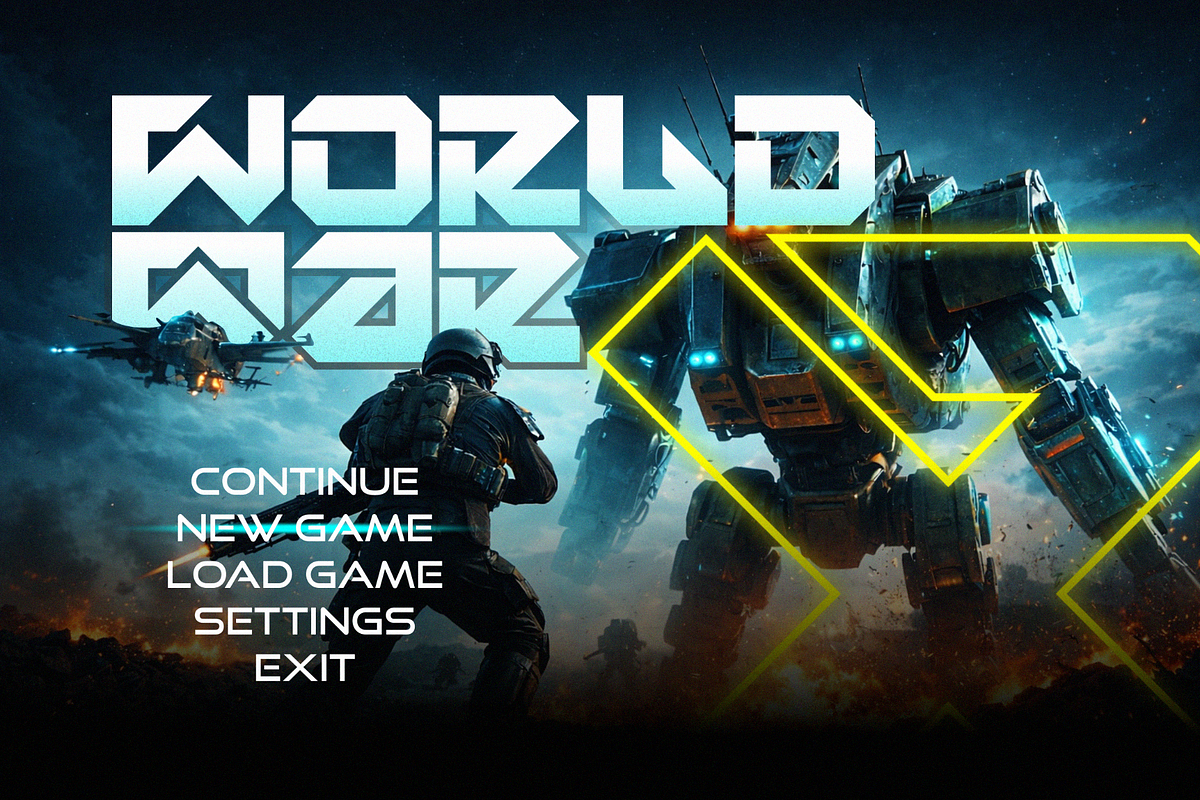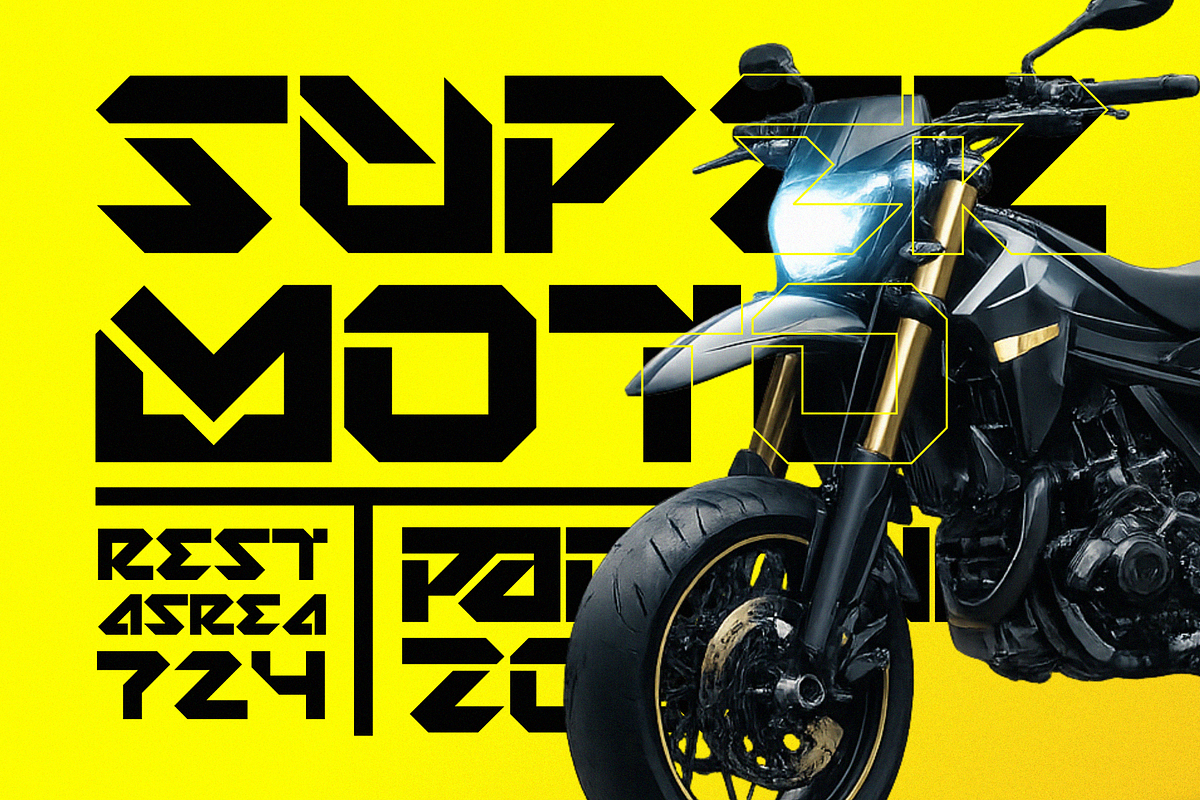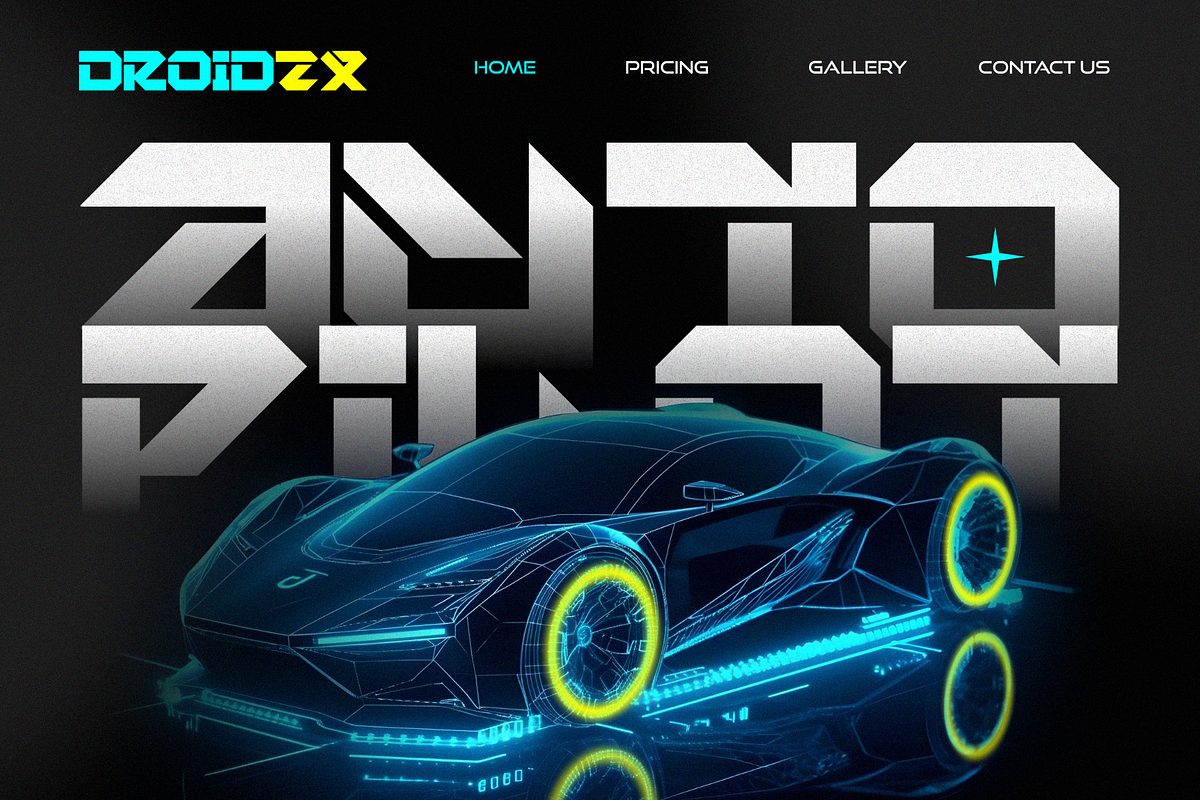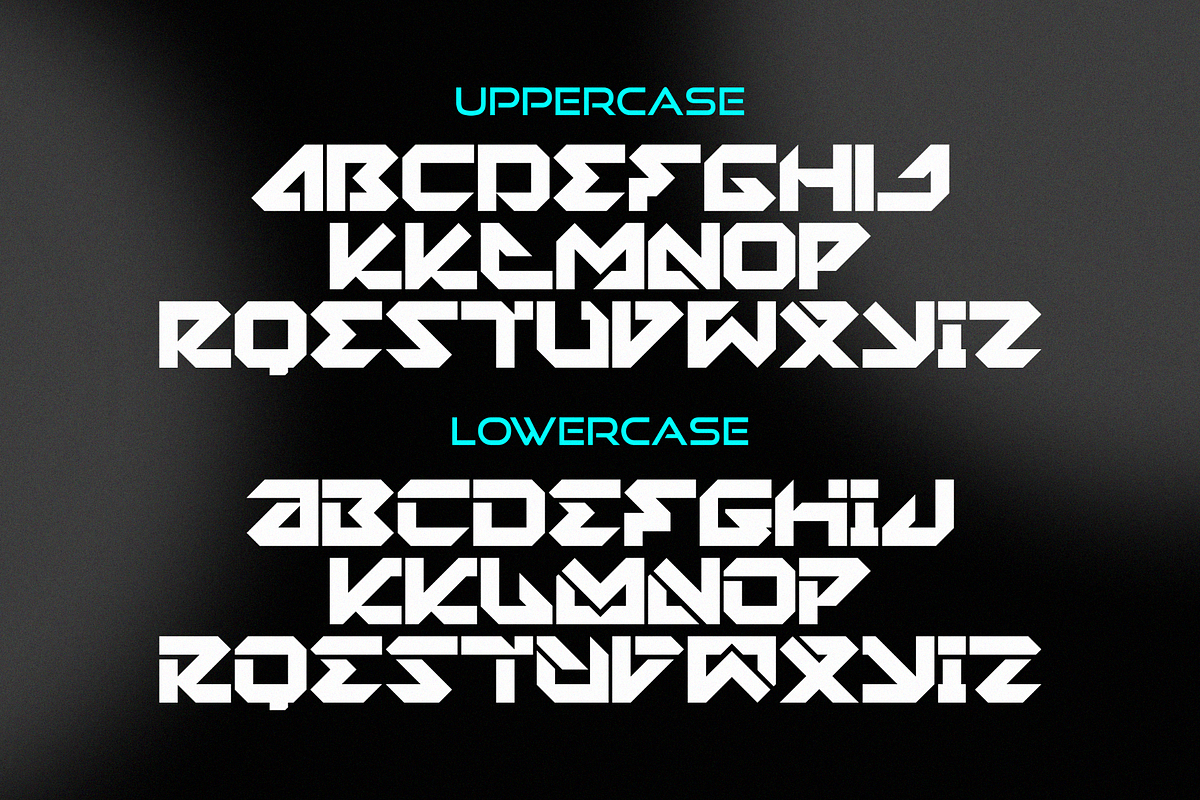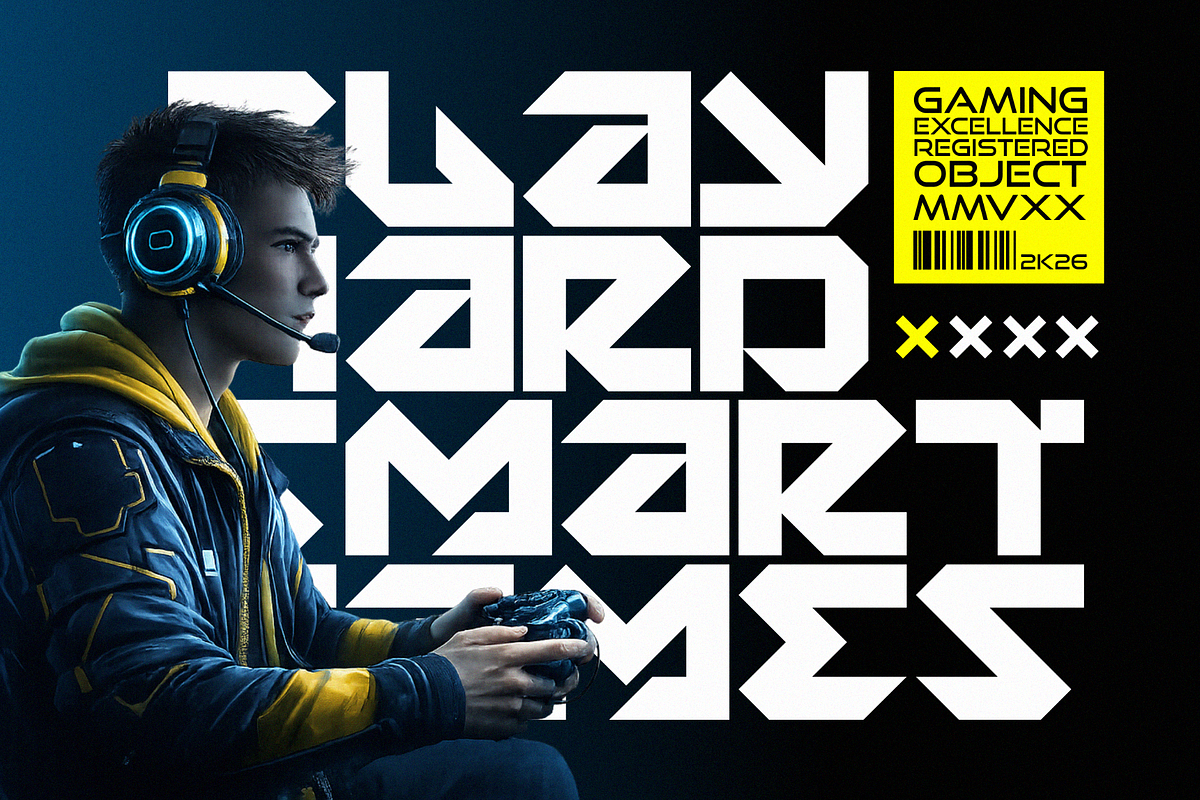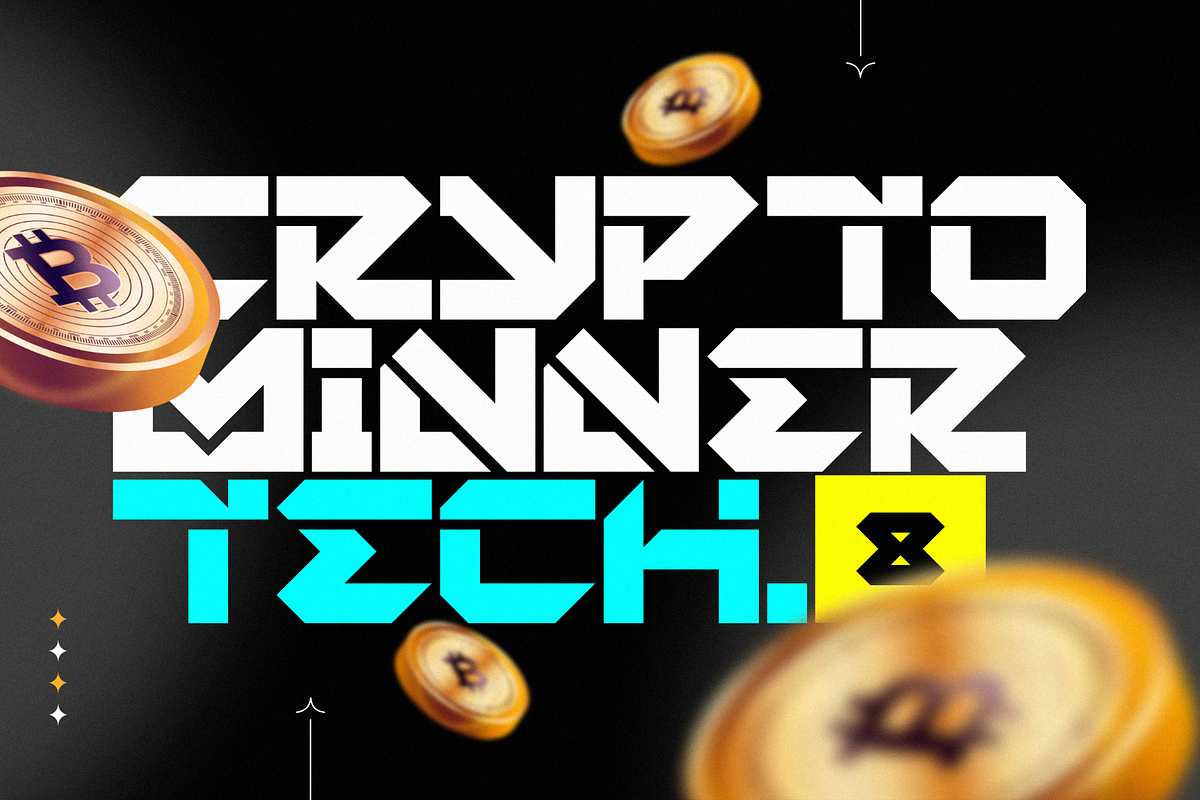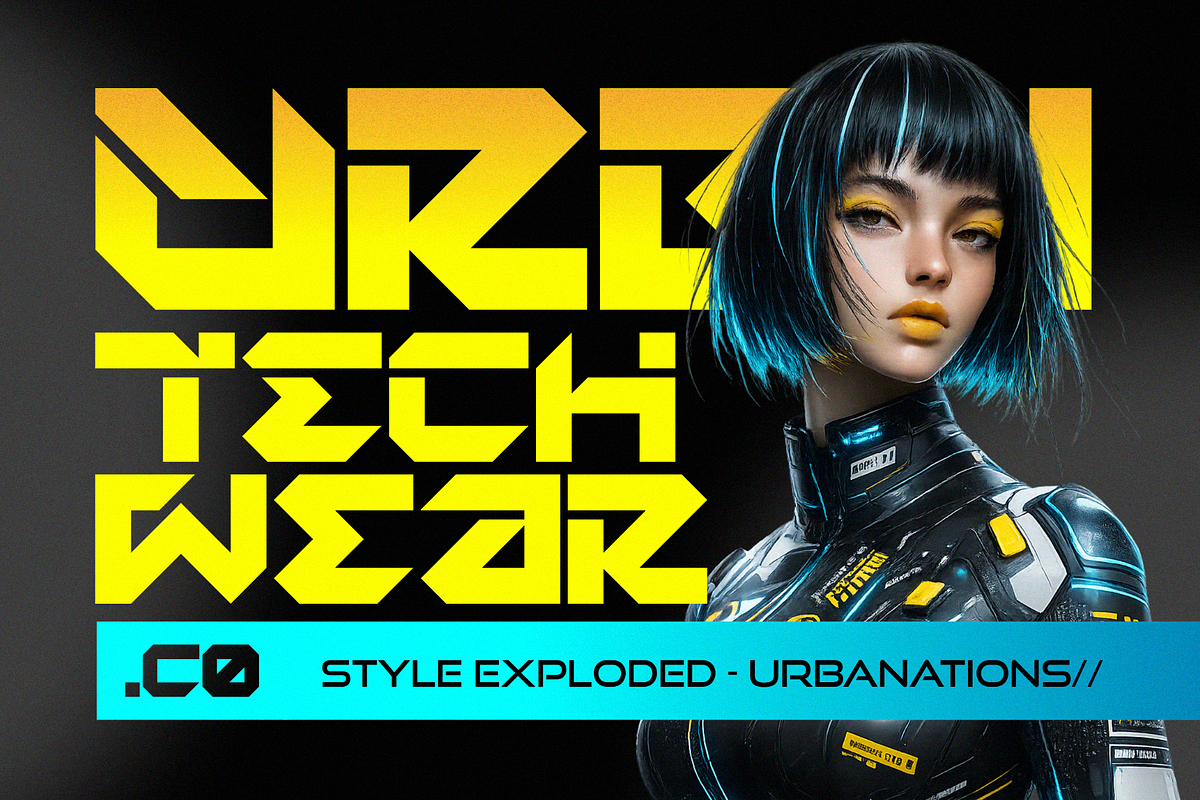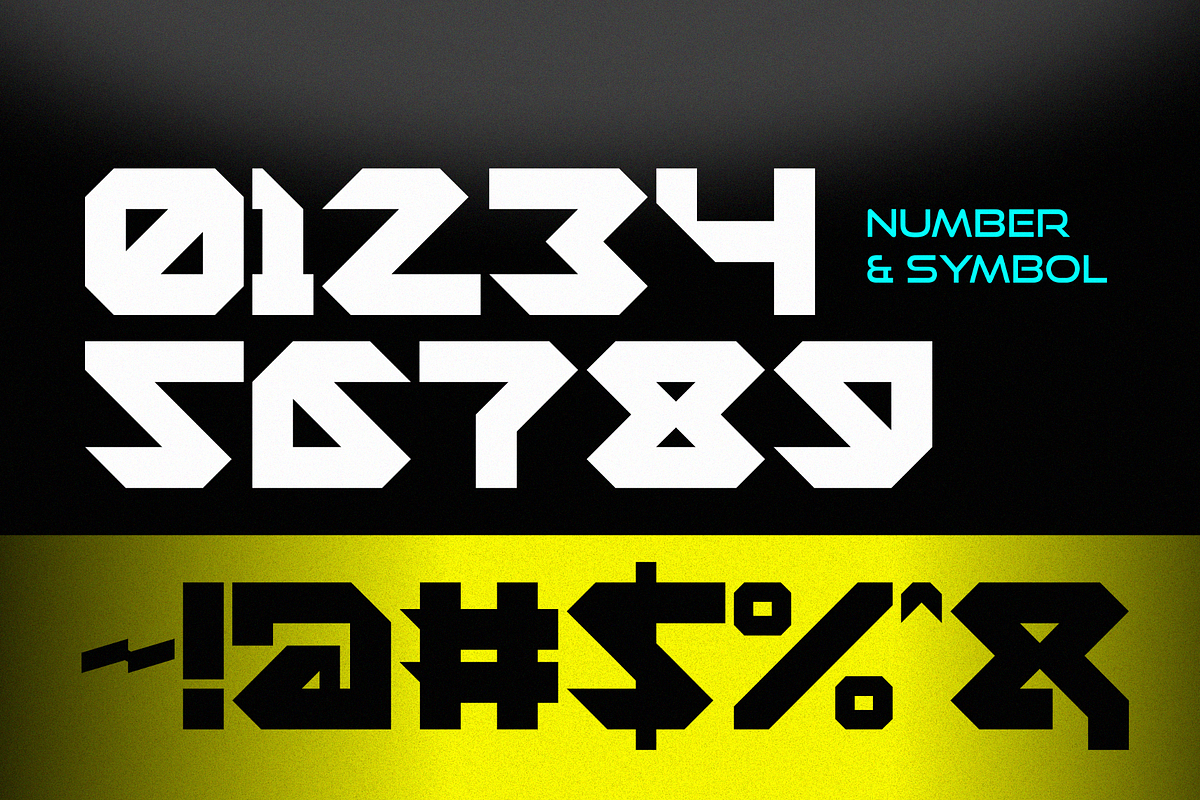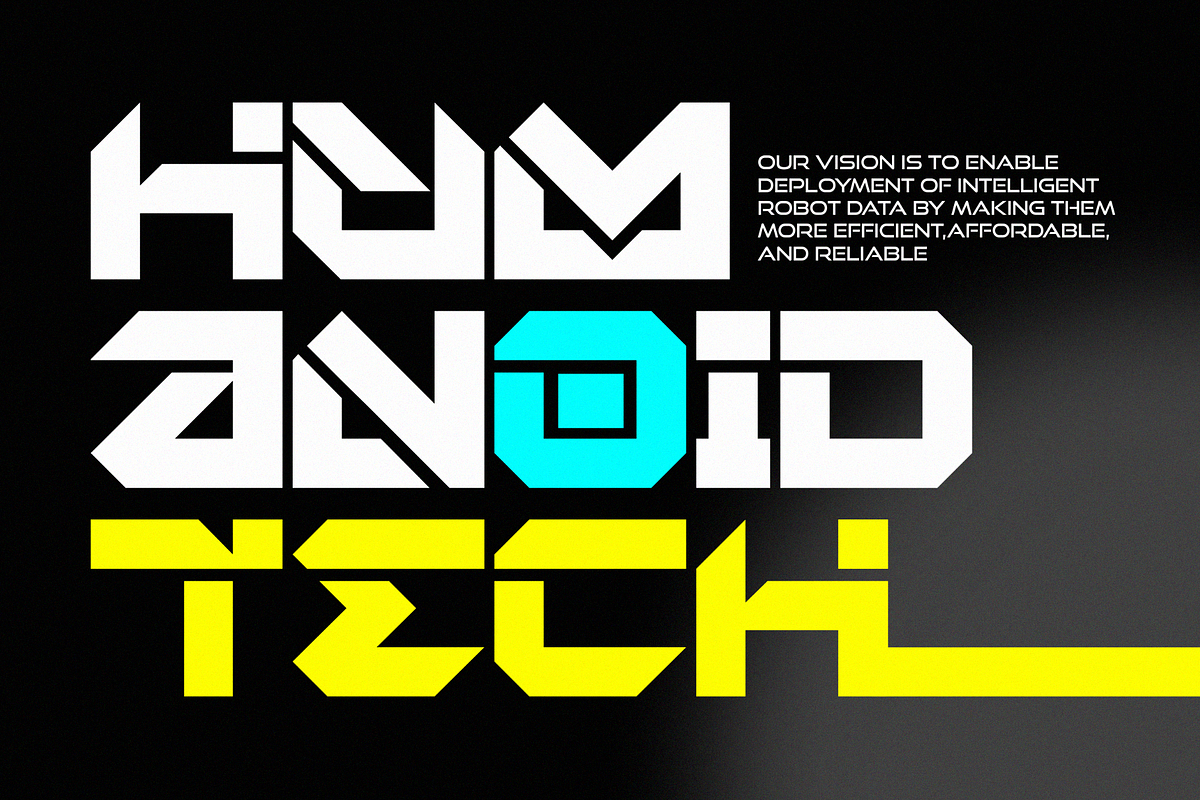
Martin Gaming - Futuristic Font
Martin Gaming – Futuristic Techno Font is designed to deliver a sharp, digital-forward look for modern creative projects. Built with a techno-inspired structure, this typeface is ideal for gaming interfaces, sci-fi titles, technology visuals, and high-impact digital layouts.
With a combination of geometric forms and dynamic letter construction, Martin Gaming creates a strong visual identity that fits seamlessly into futuristic environments. Whether used in UI design, video thumbnails, motion graphics, or promotional visuals, this font helps communicate a clear and modern tone.
The inclusion of both uppercase and lowercase characters allows for flexible typography composition, making it suitable for both headlines and supporting text. Its consistent spacing and structure ensure readability across various screen sizes and formats.
- Uppercase & Lowercase – flexible for headlines and body text combinations
- Multilingual Support – covers a wide range of international characters
- Futuristic Techno Style – structured for digital and sci-fi themed visuals
- Regular & Italic Styles – adds variation for emphasis and hierarchy
- Optimized for Screen Use – clear shapes for UI, video, and digital layouts
Why Designers Love It Designers choose Martin Gaming for its ability to adapt across digital-focused projects. The techno structure makes it suitable for gaming UI, esports graphics, app interfaces, and sci-fi compositions without requiring additional styling.
The availability of italic style provides more control when building typographic hierarchy, especially for subtitles, highlights, or motion design sequences. Its multilingual support also allows consistent use across global content without switching typefaces.
Another advantage is its balance between stylization and readability. While it carries a futuristic tone, it remains clear enough for practical use in titles, overlays, and interface elements.
Martin Gaming – Futuristic Techno Font is built for creators working in digital environments where clarity and direction matter. From interface layouts to cinematic titles and promotional graphics, this typeface supports structured and forward-looking design. Add it to your collection and apply it across projects that require a consistent techno-driven visual language.